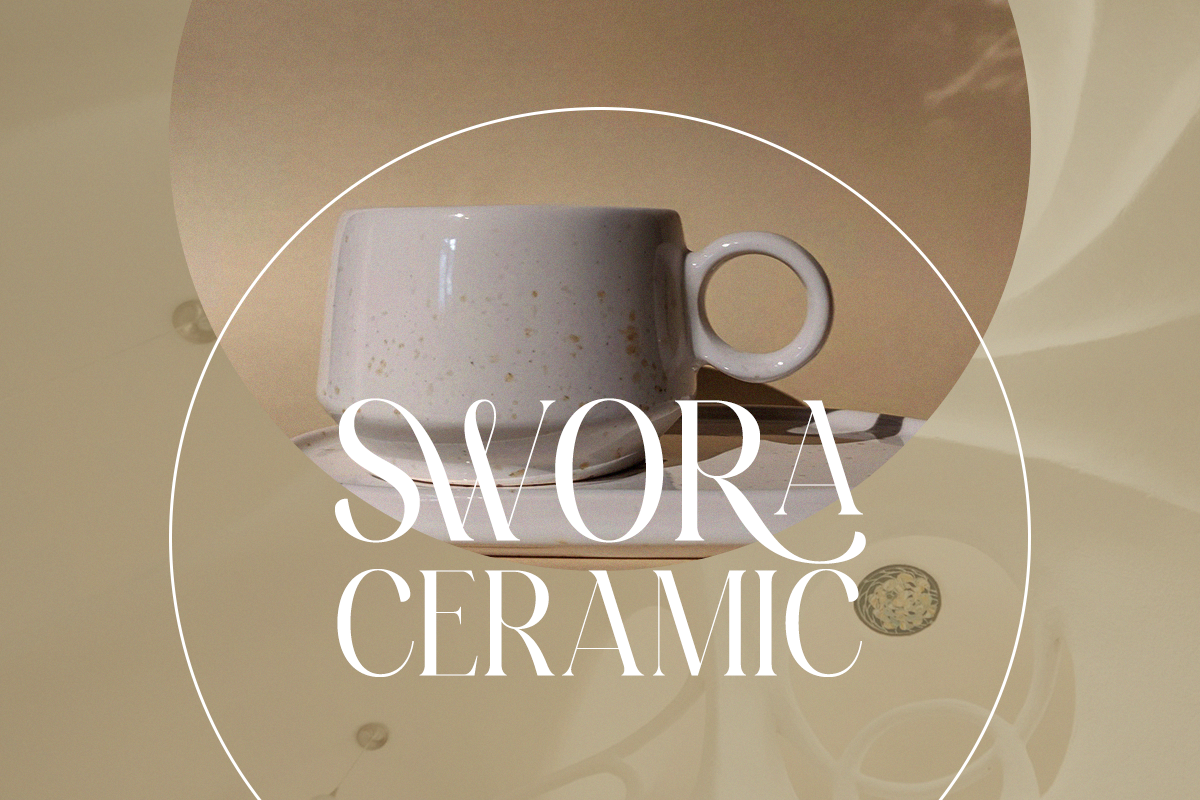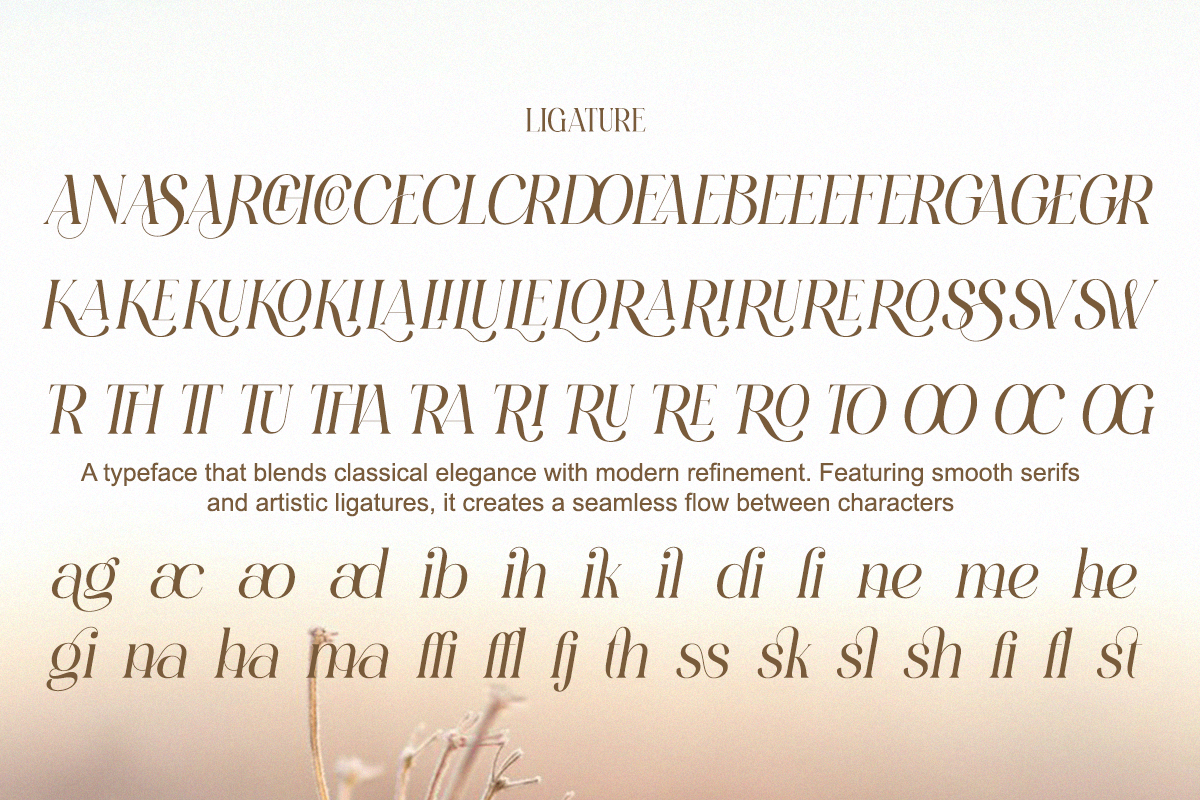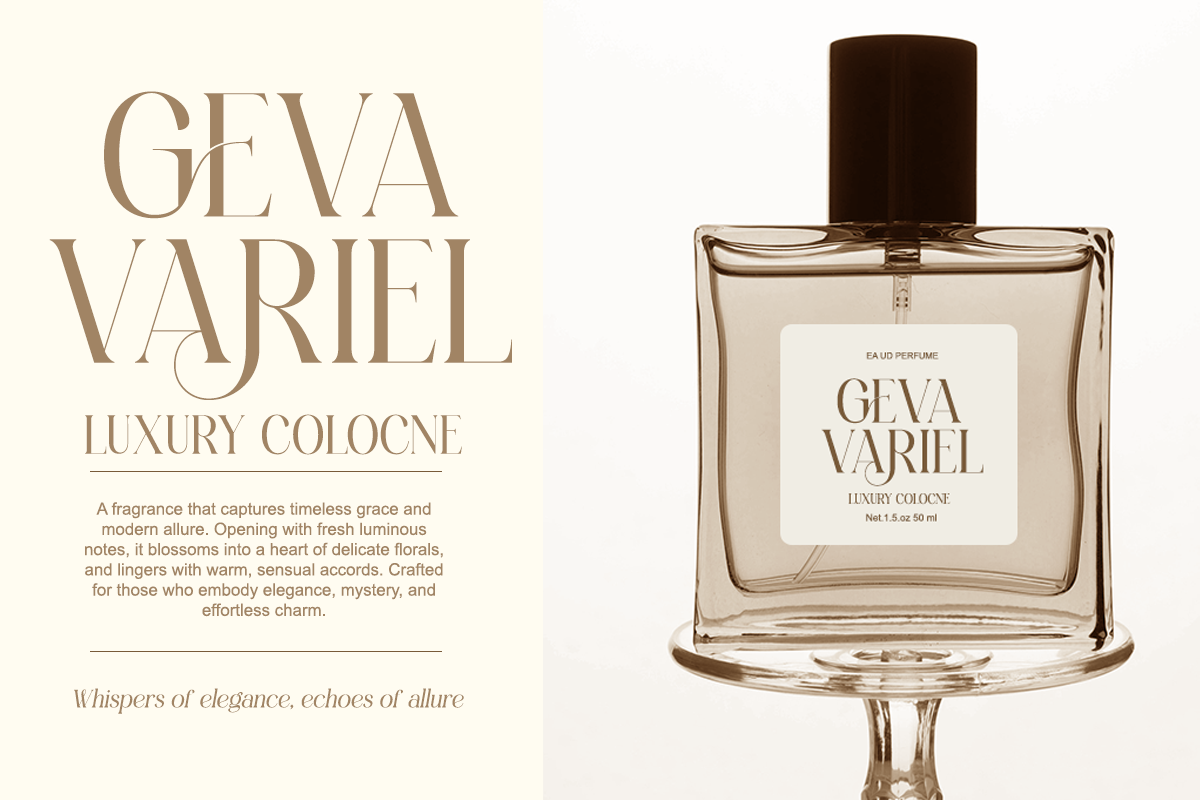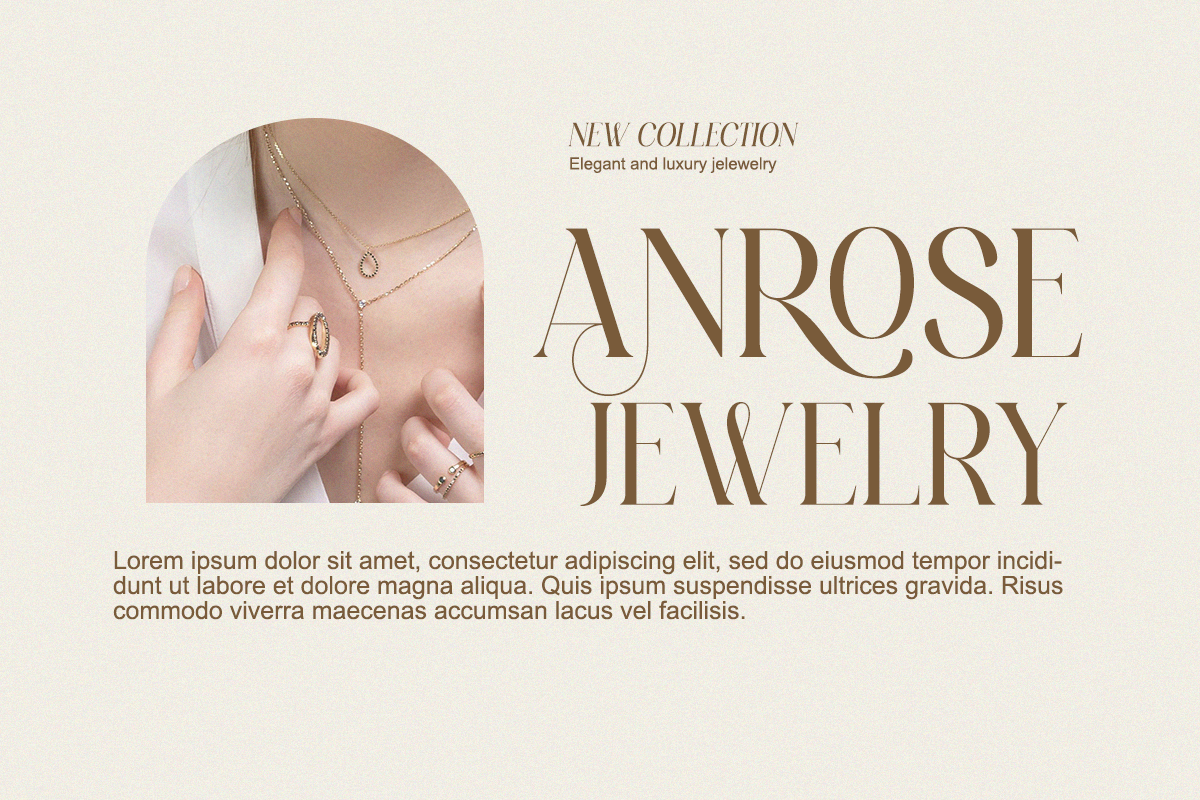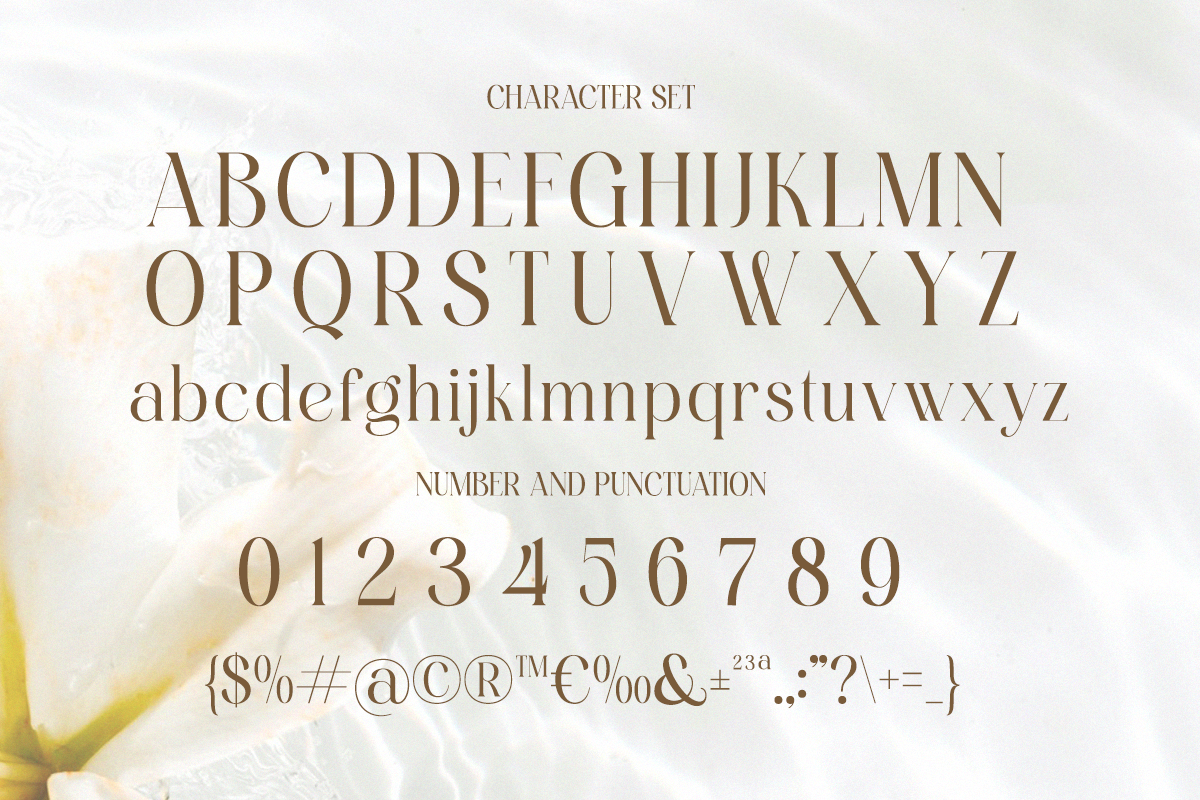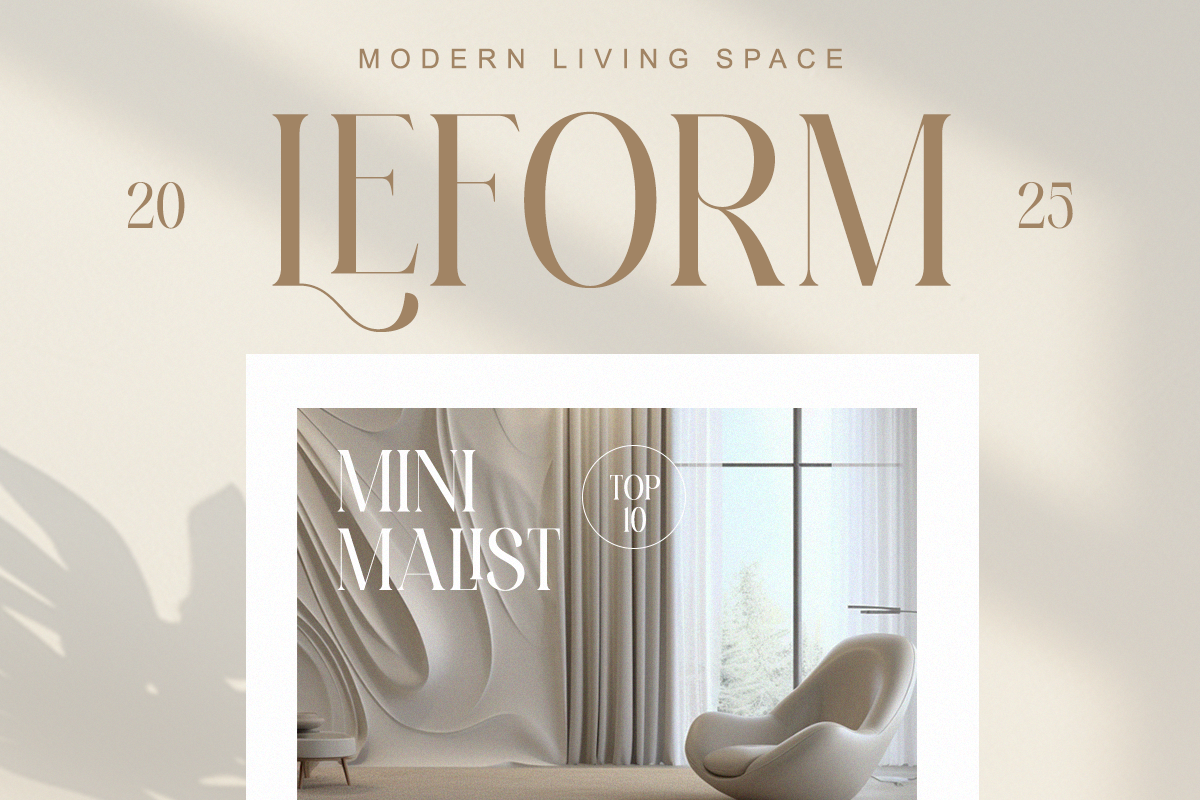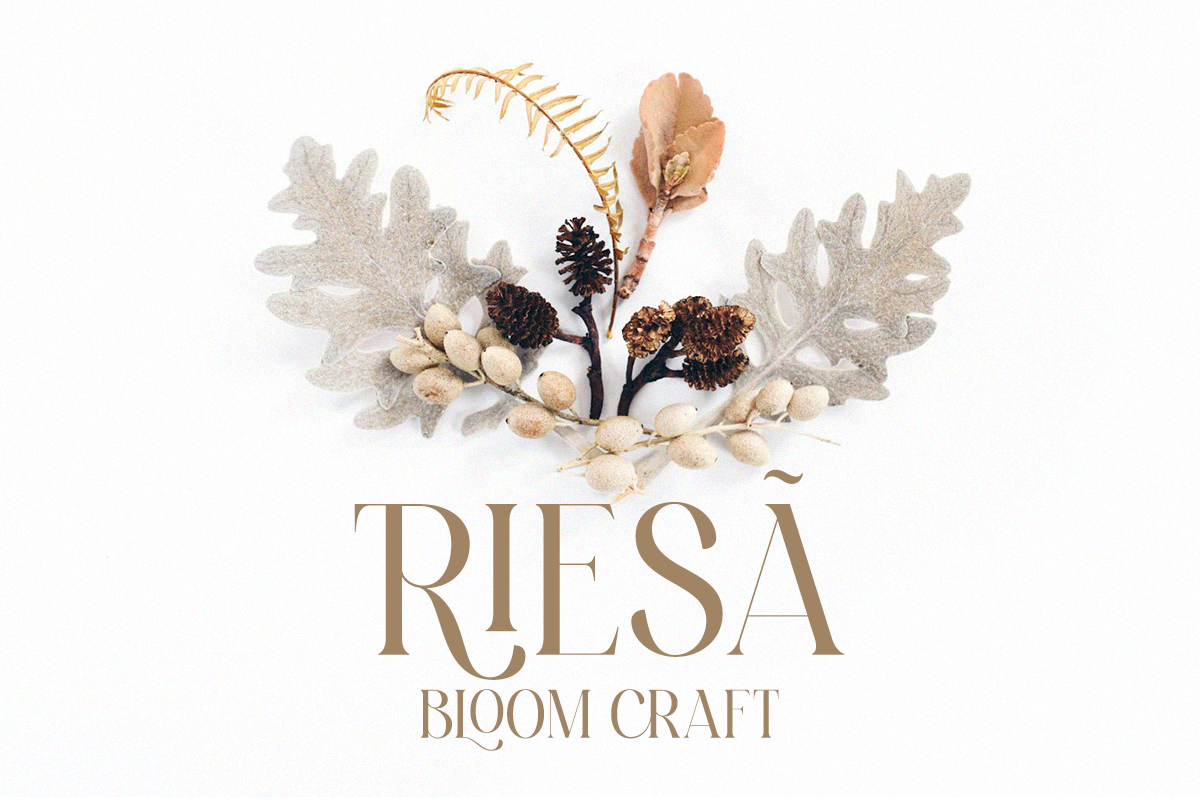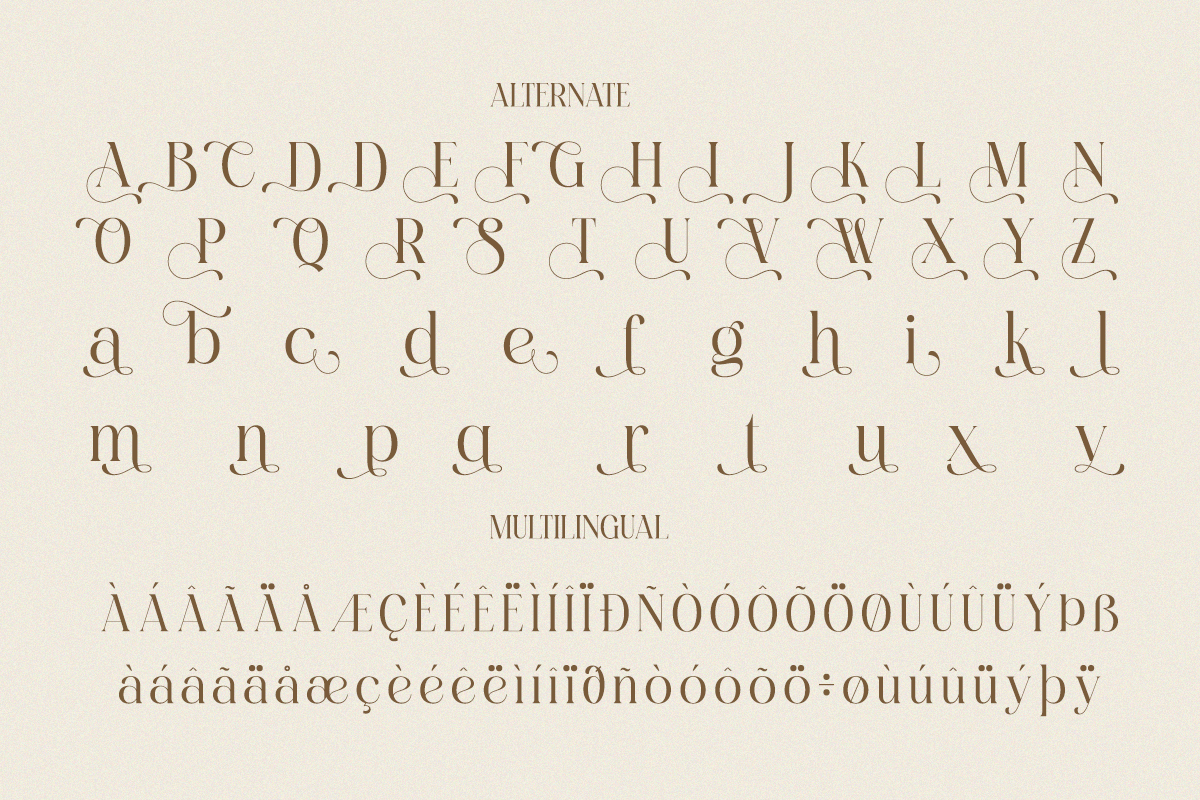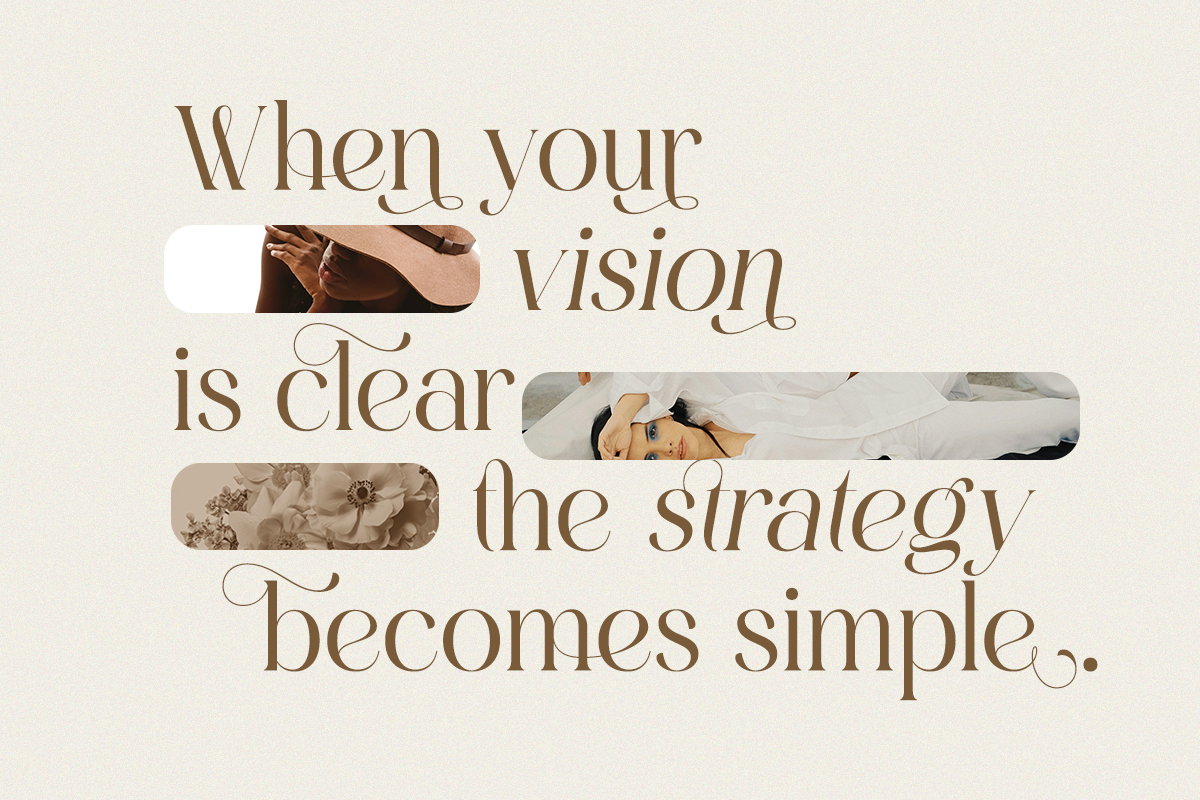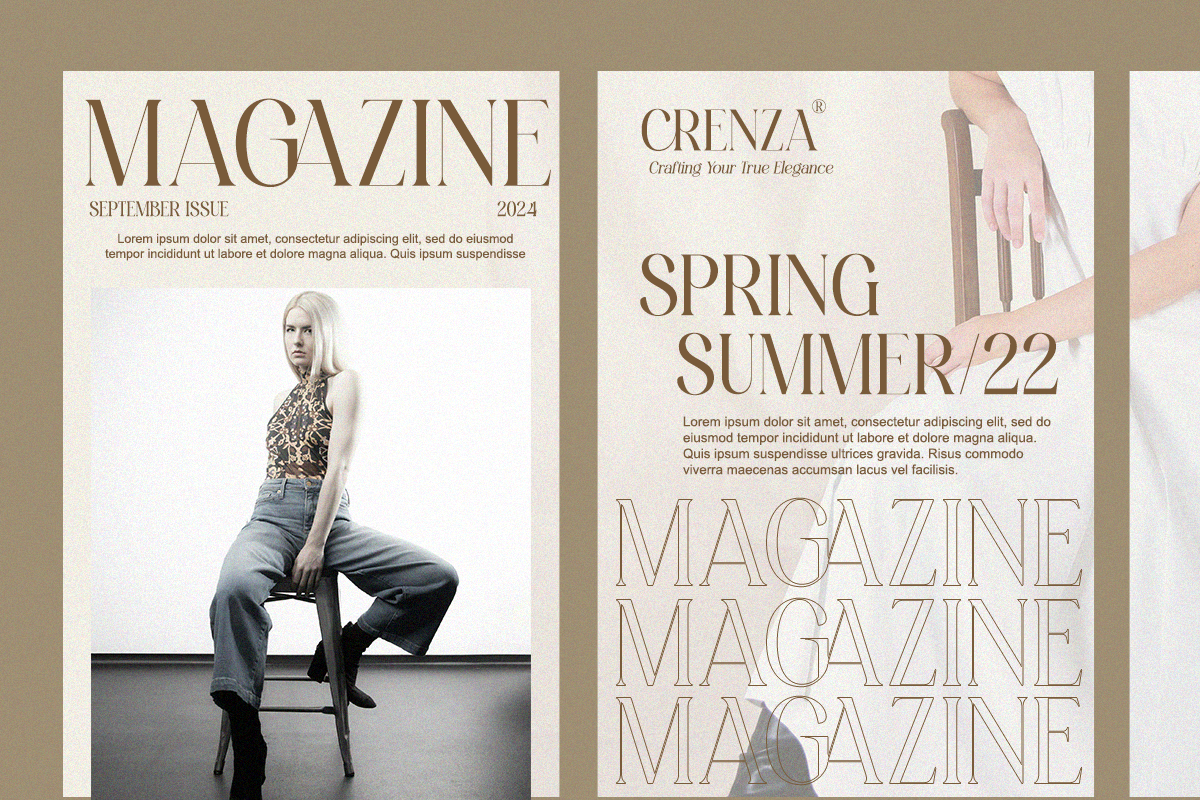
Serenity Bloom - Elegant Stylish
Introducing Serenity Bloom, a serif typeface crafted with soft femininity and modern editorial elegance. Its flowing curves, airy proportions, and artistic ligatures bring a serene and luxurious presence to any design.
Perfect for boutique branding, floral packaging, lifestyle editorials, or wedding designs—Serenity Bloom offers a harmonious balance of beauty and sophistication.
- Regular & Italic
- Elegant ligatures & alternates
- Smooth contrast strokes
Perfect For Wedding suites, beauty brands, boutique logos, magazine layouts, botanical packaging, social media templates, and soft luxury identity.